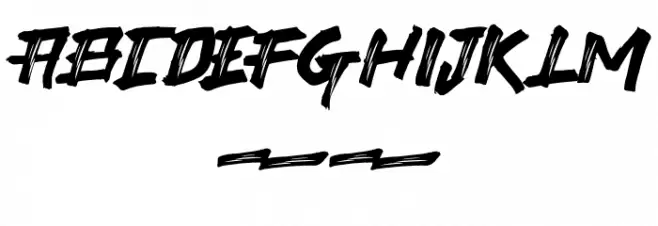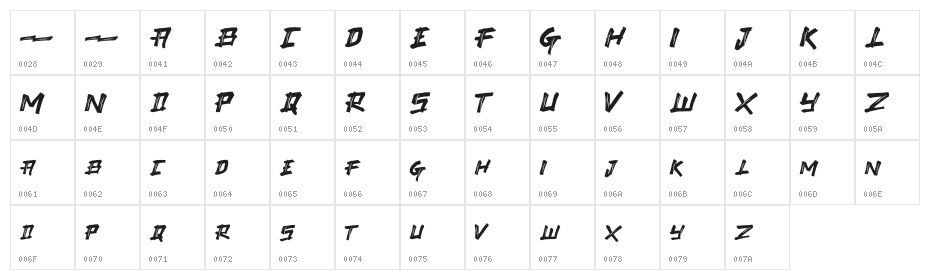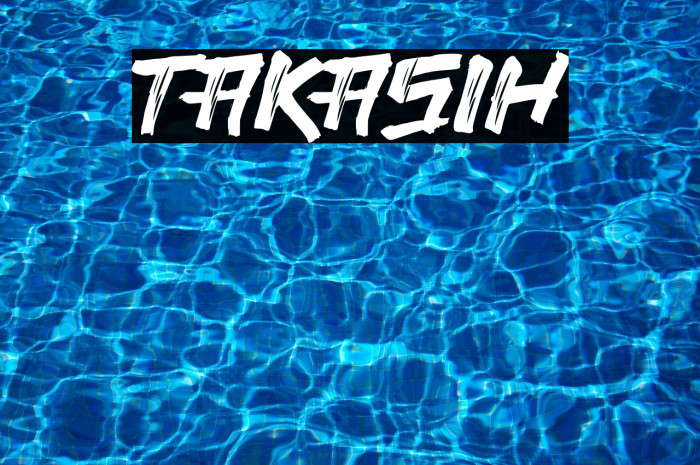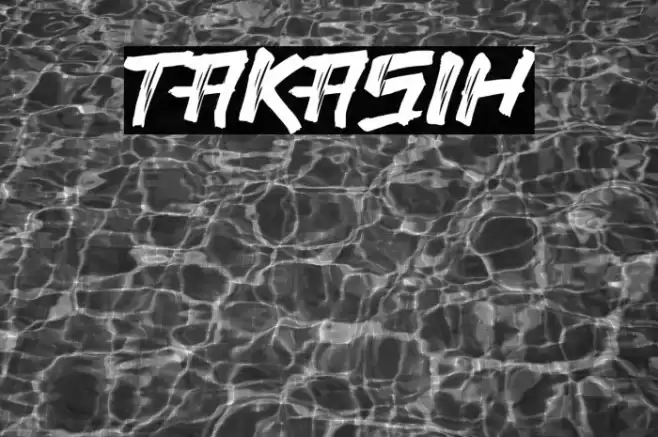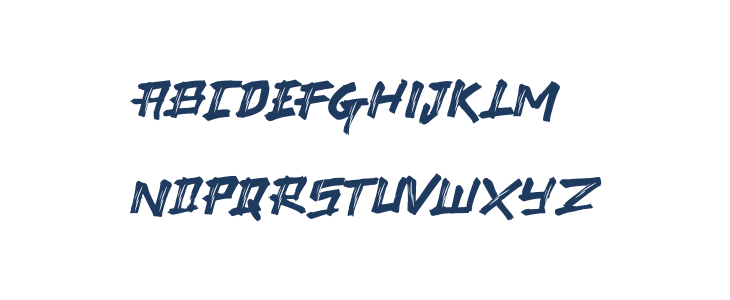
TAKASIH Font
TAKASIH Description
This font features a bold, brush-like style with sharp, angular edges and dynamic strokes. The characters are designed with a sense of movement and energy, resembling hand-painted lettering. The uppercase letters are particularly striking, with exaggerated angles and a slightly aggressive feel. The lowercase letters maintain the same energetic style, ensuring consistency across the typeface. The numbers and special characters are crafted to match the overall aesthetic, making this font suitable for eye-catching designs.
Proposed ProjectsIdeal for posters, branding, and any project requiring a bold, energetic typeface.